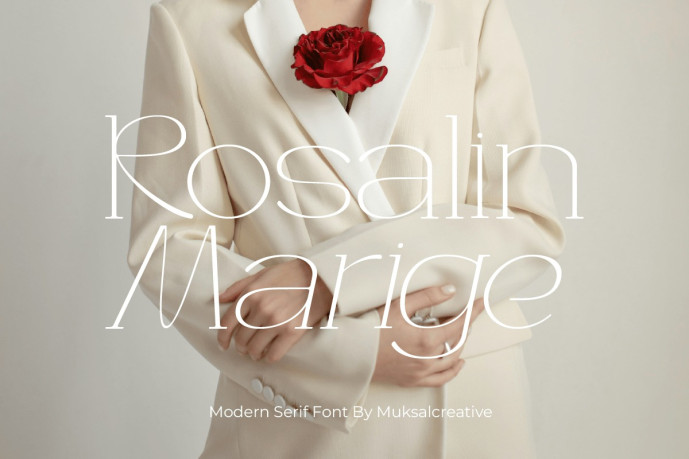
Rosaline Marige Font
Rosaline Marige Font is a refined modern serif typeface that combines classic serif details with contemporary elegance. Its polished letterforms and subtle sophistication make it ideal for branding, logos, editorial headlines, wedding stationery and premium packaging. This font includes both upright and italic styles, uppercase & lowercase characters, numerals and punctuation, and multilingual support — offering the versatility needed for both print and digital design.